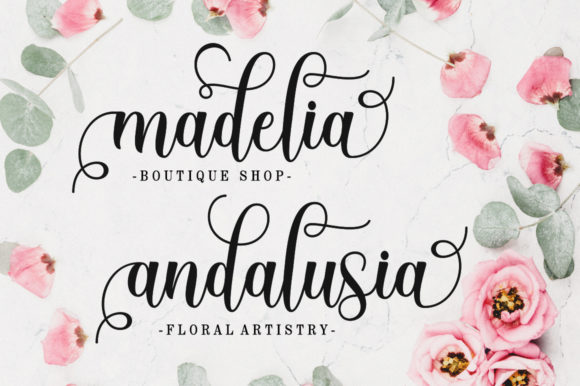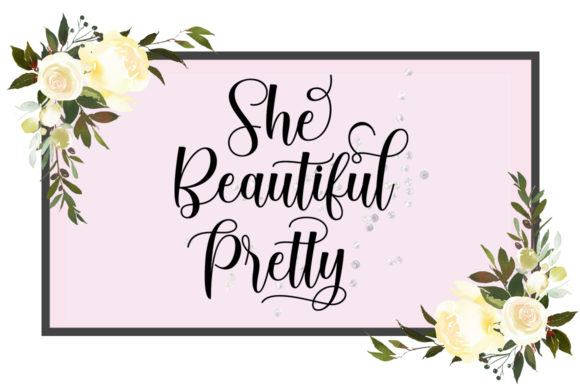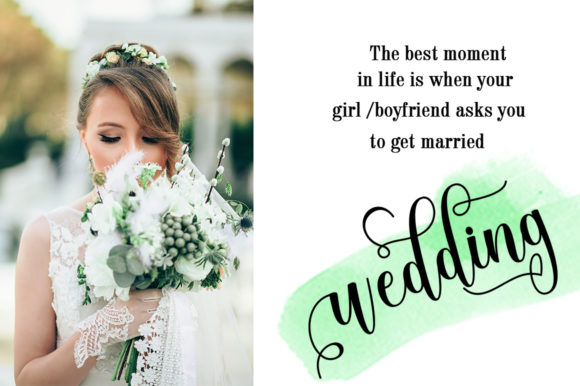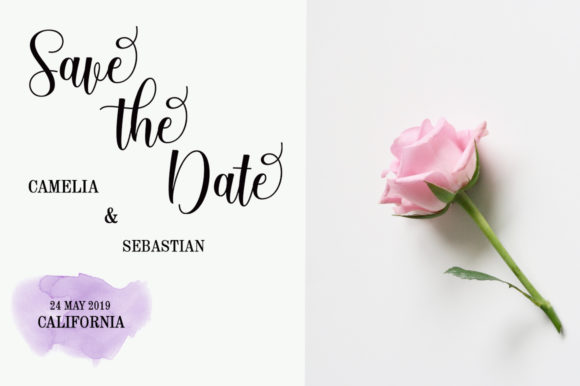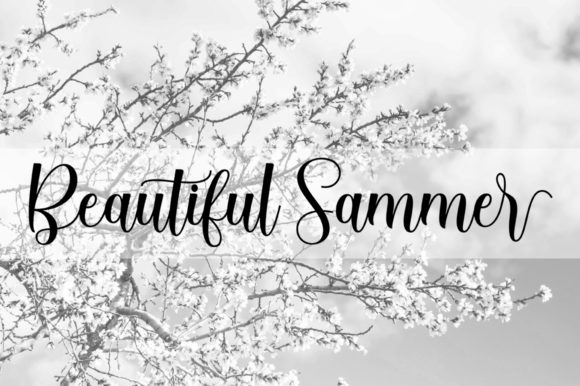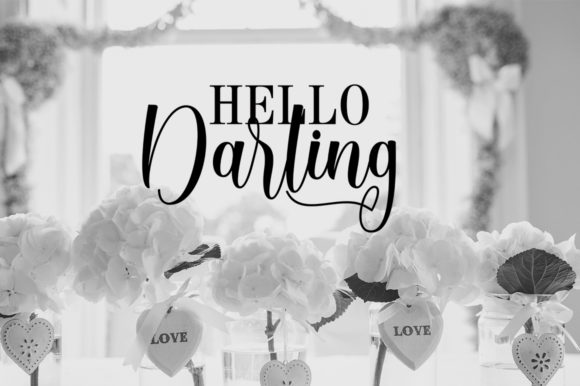
Discover the Timeless Beauty of the Batavia Script Font
As a designer, there’s nothing quite like the thrill of the creative process. It’s that moment when you’re pouring over fonts, searching for the perfect combination to bring your vision to life. And then, like a ray of sunshine, you stumble upon it – the Batavia Script Font. This modern calligraphy design is more than just a font, it’s an experience waiting to happen.
The Batavia Script Font is a masterclass in elegance and sophistication, with its beautiful swashes and flowing lines. Whether you’re designing a wedding invitation, a luxury brand, or a romantic novel, this font is sure to elevate your design to new heights. And the best part? It’s not just a pretty face – it’s a versatile tool that’s perfect for designers of all levels.
- Unique Characteristics: This script font features elegant, cursive letterforms with a touch of elegance and sophistication, making it ideal for wedding invitations, greeting cards, and other special occasions.
Designer Review: Batavia Script Font
I recently had the chance to work with the Batavia Script font, and I must say it’s a delightful addition to any design project. ✨ The fluidity of the script and the elegant feel it brings to text are truly captivating. It’s perfect for adding a touch of sophistication to your branding, advertising, or even wedding invitations.
One of the standout features of Batavia Script is its versatility. It comes in a range of weights, from light to bold, allowing you to adjust the font to suit your design needs. This is especially useful when working on projects that require a mix of headings and body text.
While Batavia Script is an excellent font, it’s not without its limitations. ⚠️ One of the main drawbacks is its limited language support. If you’re working on a project that requires a specific language, you may find that Batavia Script doesn’t support it.
- May not be suitable for projects requiring extensive coding or technical writing due to its script nature.
- Not ideal for small font sizes due to its ornate details.
Overall, I’m thoroughly impressed with the Batavia Script font. Its elegant design and versatility make it a great choice for a wide range of projects. While it has its limitations, I believe the benefits far outweigh the drawbacks. If you’re looking for a beautiful script font to elevate your designs, Batavia Script is definitely worth considering.
Use Batavia Script Font for:
– Titles and headings
– Creative and artistic projects